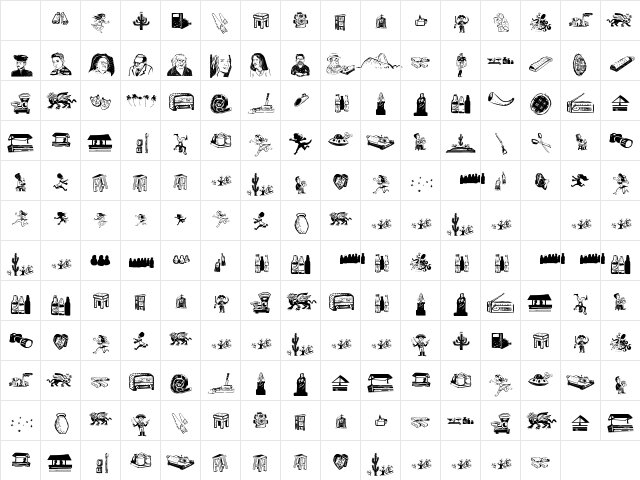
Complete Cordel de Mangai Regular glyph index. Displaying only characters natively supported by Cordel de Mangai Regular font.
Cordel de Mangai is a composed and adaptable typeface that performs quietly and consistently across a wide range of design contexts.